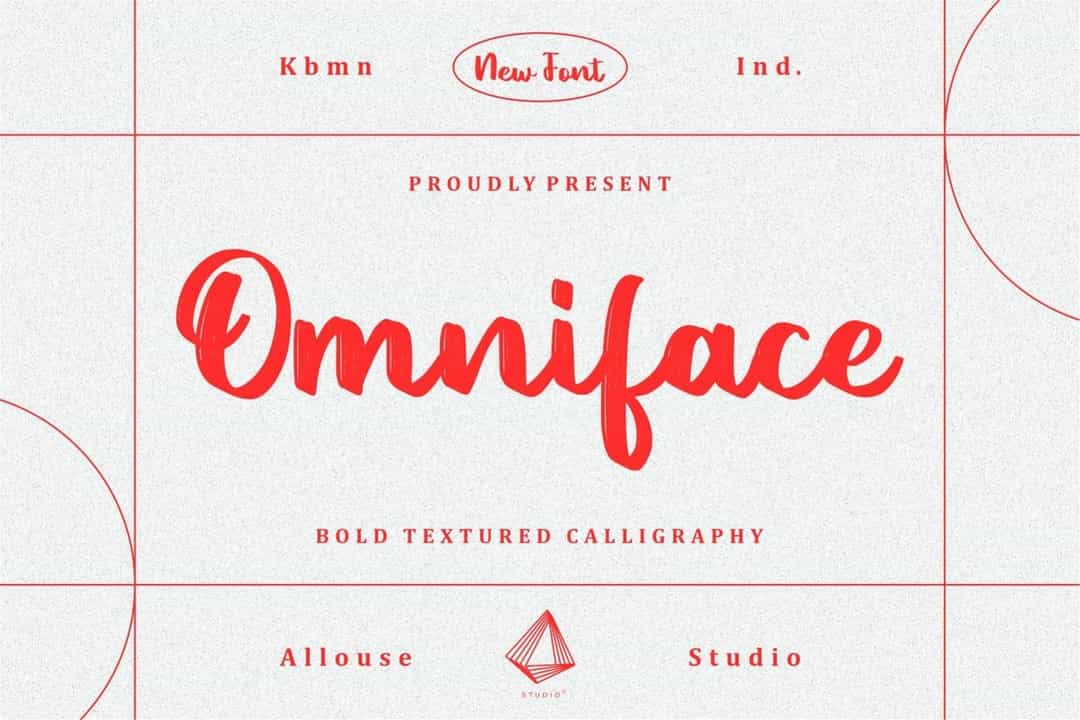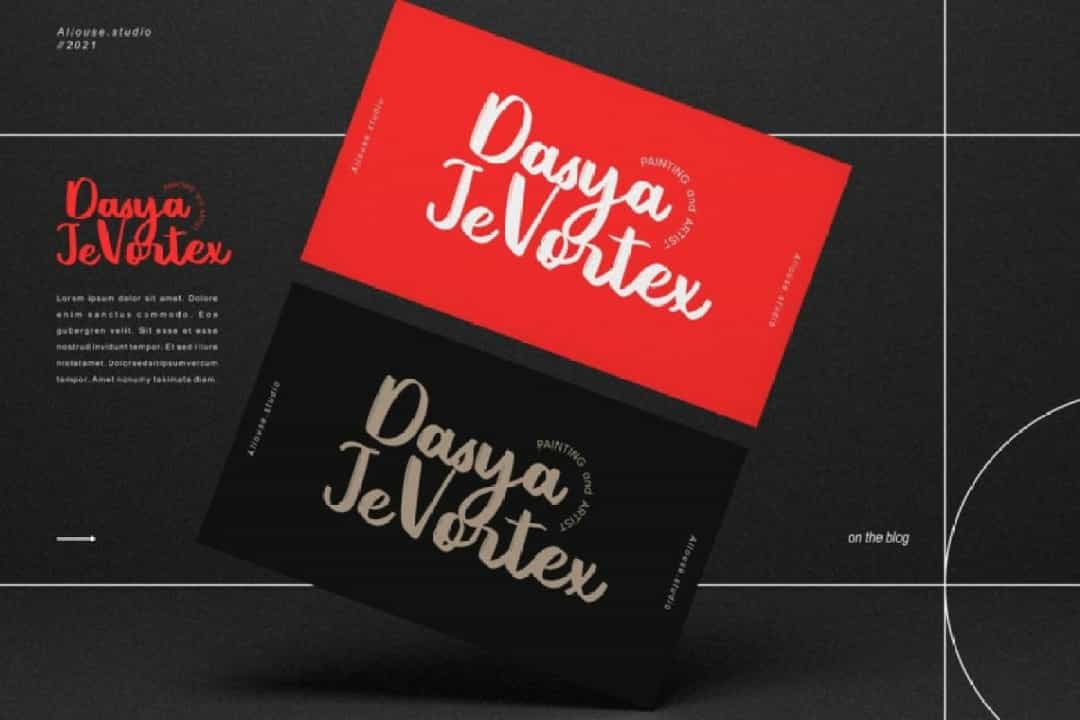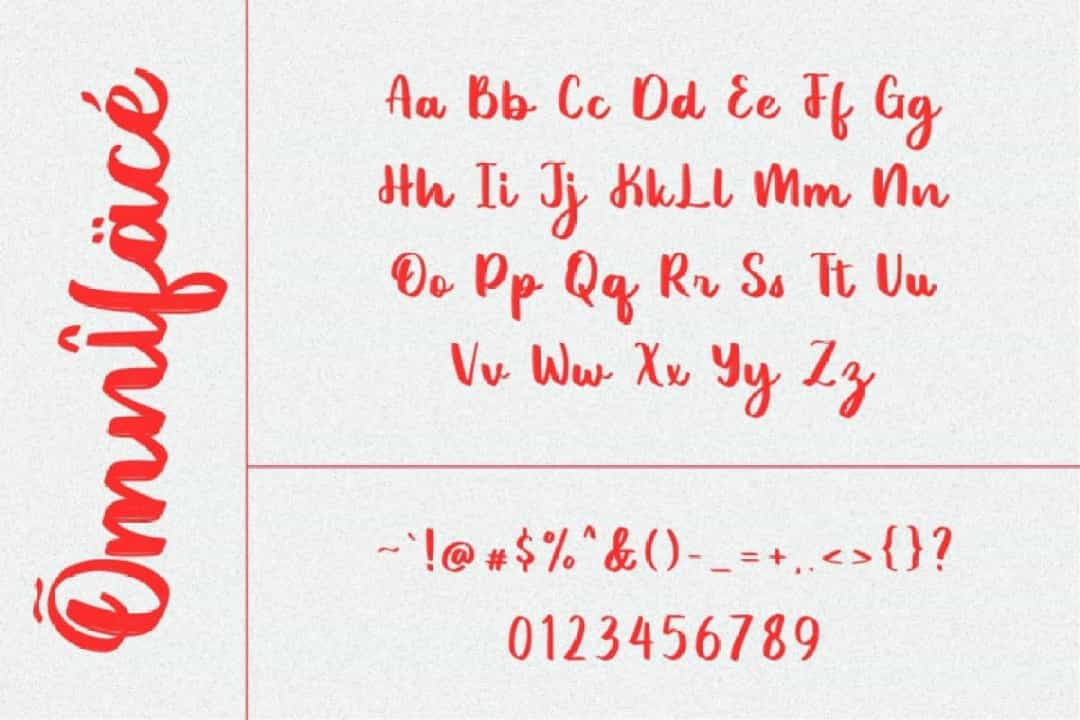
OMNIFACE is an extraordinary calligraphy font that has textured letters. Perfect for product packaging, branding, magazines, wedding invites or writing words on backgrounds for social media or writing directly on the products, Omniface supports TTF and has multilingual capabilities.